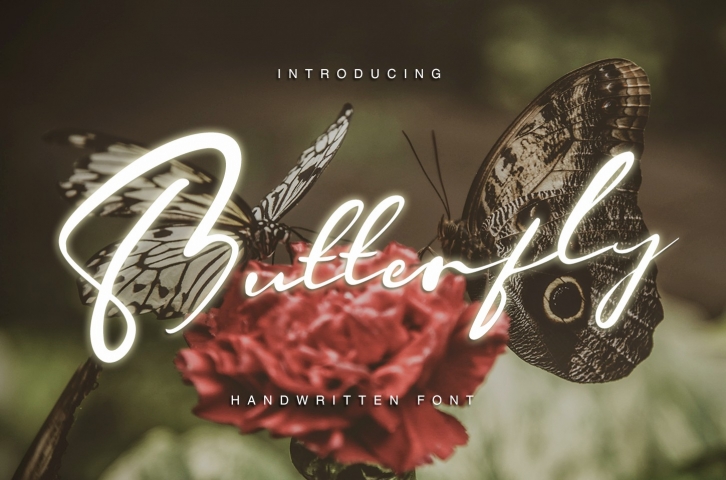
Butterfly - Hadwritten font Download
Butterfly is a trendy and unique font with an authentic style. It was designed by Jine Cameo and it's a great choice for creative people who need such a font. It was released on December 2, 2019 and the file size is 14.77 MB. Butterfly will add an organic vibe to any design idea!